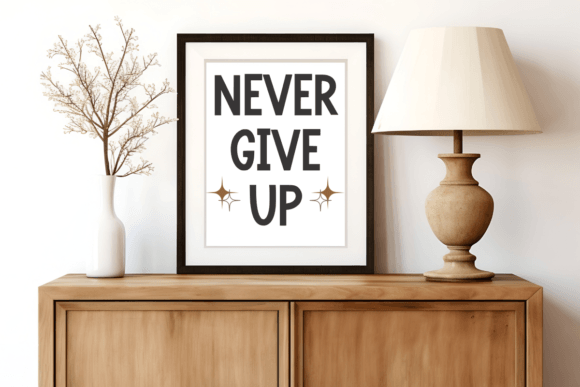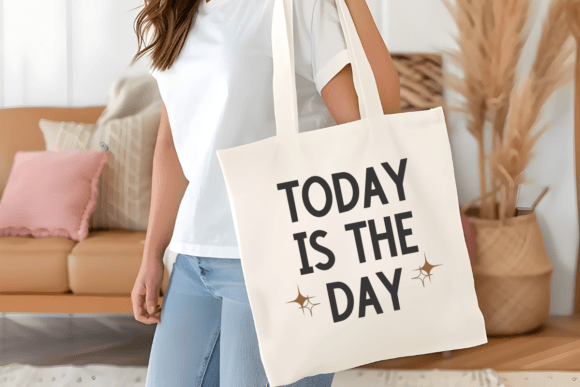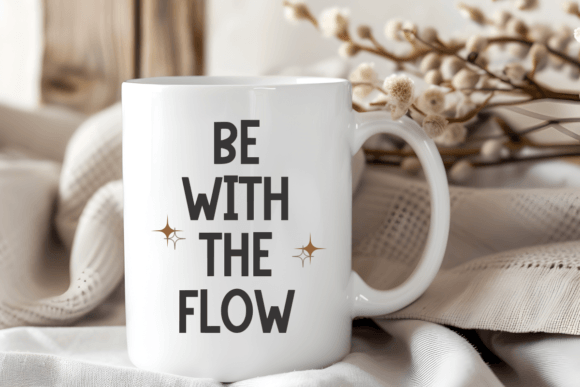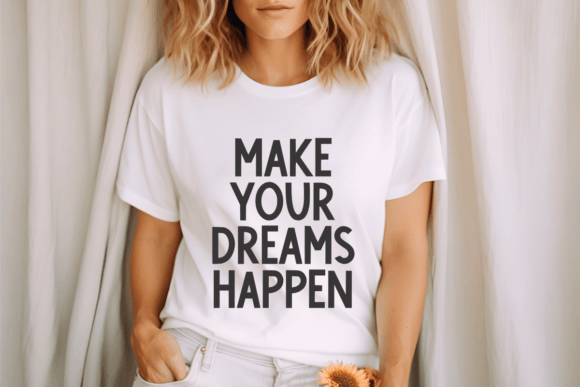
Introducing Day Dream Font: The Sweet and Friendly Handwritten Font
Are you a designer or crafter looking for a font that can add a touch of warmth and personality to your projects? Look no further than Day Dream Font! This sweet and friendly handwritten font is perfect for a wide range of designs, from invitations and greeting cards to branding and packaging. In this article, we’ll take a closer look at Day Dream Font and explore its unique features, uses, and benefits.
A Natural and Unique Style
Day Dream Font is a handwritten font that boasts a natural and unique style. Its organic feel makes it incredibly fitting for designs that require a personal touch. The font’s irregularities and quirks give it a charming, homemade quality that is sure to capture the hearts of your audience. Whether you’re creating a rustic wedding invitation or a playful kids’ party flyer, Day Dream Font is the perfect choice.
Endless Possibilities
The versatility of Day Dream Font is one of its standout features. Its sweet and friendly tone makes it suitable for a wide range of designs, from:
- Kids’ party flyers and decorations
- Branding and packaging for small businesses
As you can see, the only limit to using Day Dream Font is your imagination! Its flexibility makes it an excellent addition to any designer’s or crafter’s toolkit.
Key Features of Day Dream Font
So, what makes Day Dream Font so special? Here are some of its key features:
- Handwritten style: Day Dream Font is a genuine handwritten font, giving it a unique and personal feel.
- Natural and organic: The font’s irregularities and quirks make it look like it was written by hand.
- Sweet and friendly tone: Day Dream Font is perfect for designs that require a warm and approachable tone.
- Highly versatile: Use it for a wide range of designs, from invitations to branding and packaging.
Tips for Using Day Dream Font
Now that you know more about Day Dream Font, here are some tips for using it effectively in your designs:
- Pair it with contrasting fonts: Combine Day Dream Font with a clean, sans-serif font to create visual interest.
- Experiment with colors: Day Dream Font looks great in a variety of colors, from bright and bold to soft and pastel.
- Use it for headings and titles: Day Dream Font is perfect for headings and titles, adding a touch of personality to your designs.
- Add embellishments: Consider adding embellishments, such as flowers or icons, to give your designs an extra touch of whimsy.
Day Dream Font is a sweet and friendly handwritten font that is perfect for designers and crafters looking to add a personal touch to their projects. Its natural and unique style makes it incredibly versatile, suitable for a wide range of designs. With its key features, tips for use, and endless possibilities, Day Dream Font is an excellent addition to any creative toolkit. So why not give it a try and see the magic it can bring to your designs?